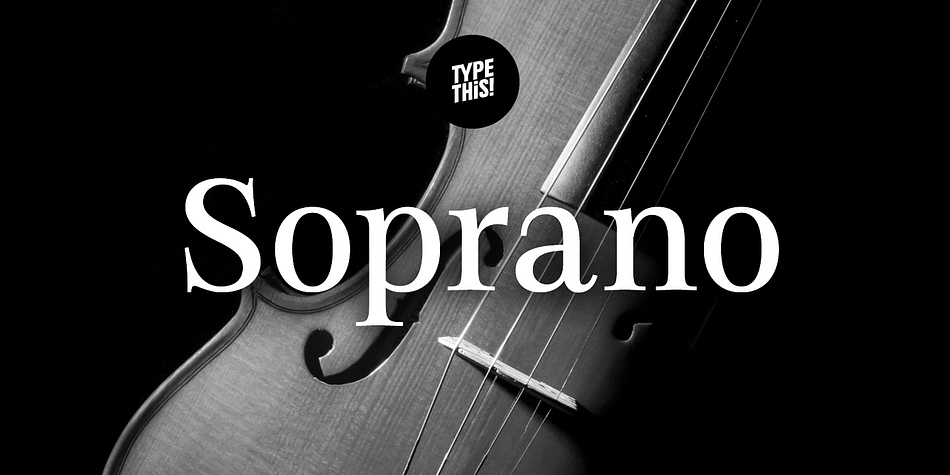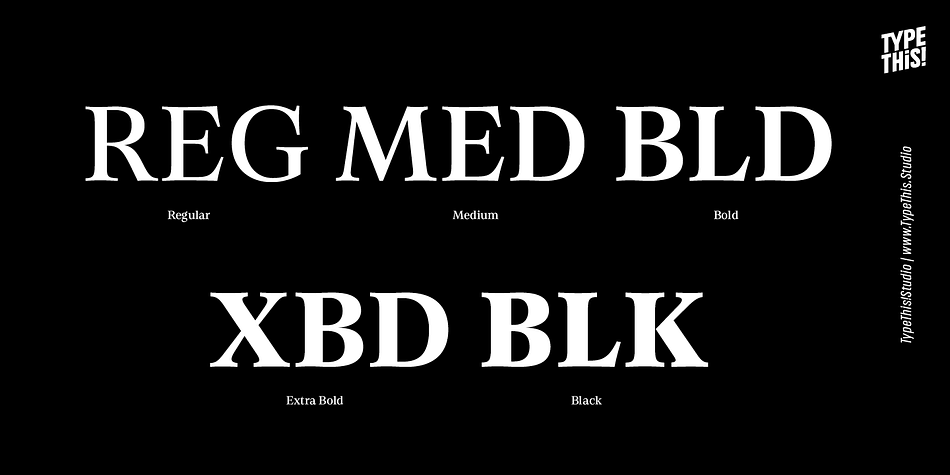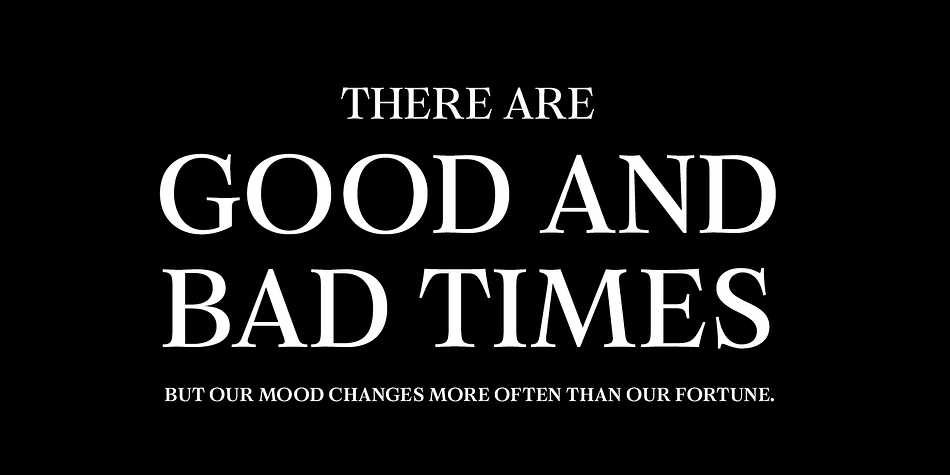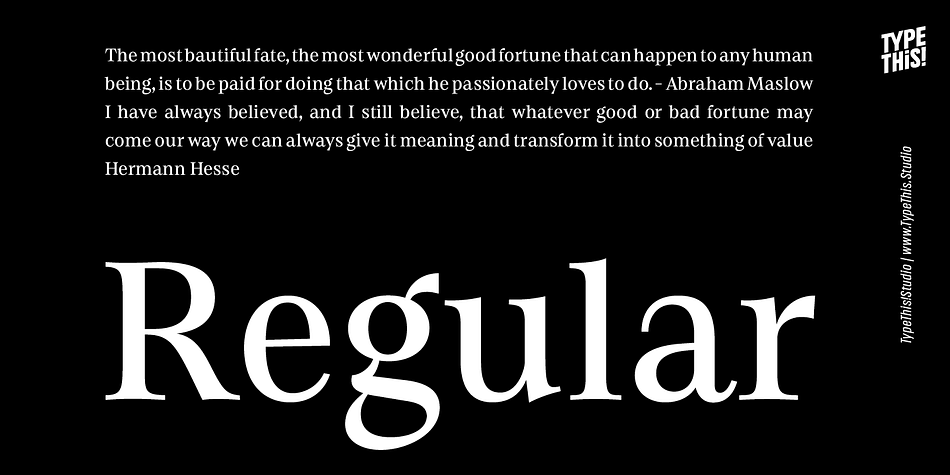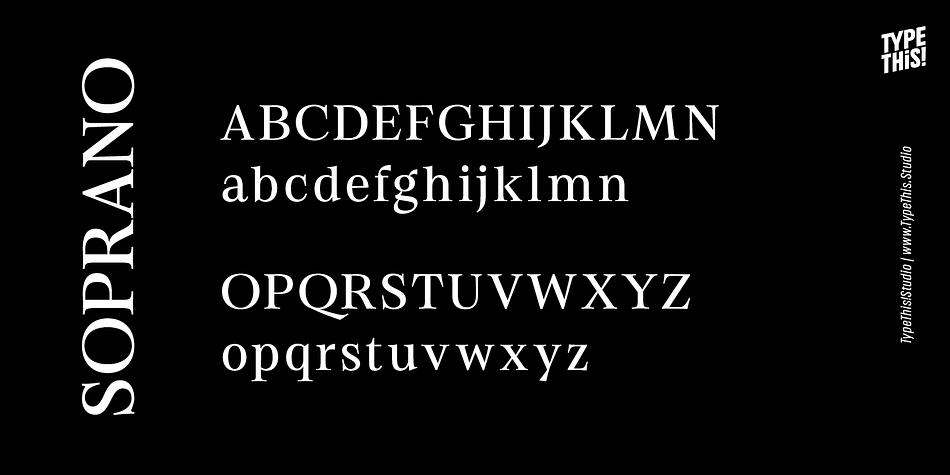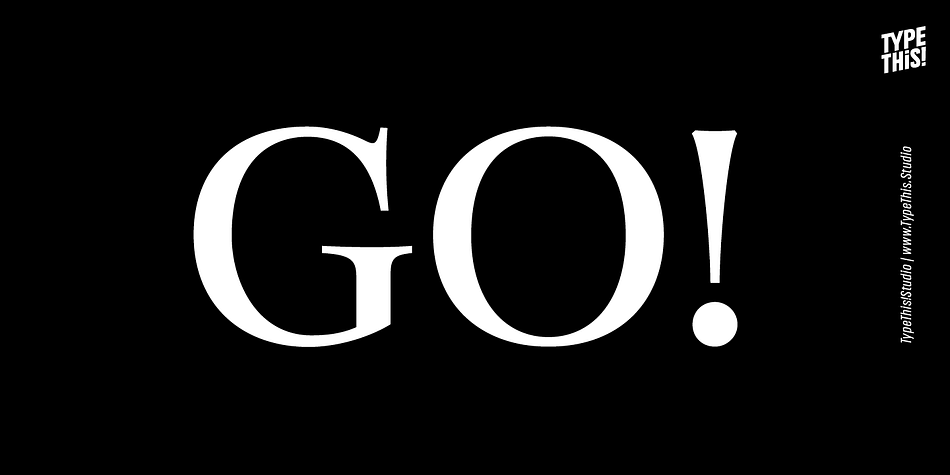
Soprano
Designed by Anita Jürgeleit, Soprano is a serif font family. This typeface has five styles and was published by TypeThis!Studio.
A well-polished typeface is like the sweet sound of a melodious voice.
Soprano is designed for elegant and luxury design elements. Whether it’s brands for watches, jewelry, cars or fine wines, Soprano adds the undeniable and outstanding beauty of a professional designed elegant typeface.
Soprano offers 5 weights and a full set of upper & lowercase letters, ligatures, old-style & lining figures as well as ​broad Latin​ language support.
Typeface Features
- 659 Characters
- 5 Styles (Regular, Medium, Bold, Extra Bold, Black)
- Old Style Figures
- Lining Figures
- Predefined Fractions
- Standard Ligatures
- Numerators/Denominators
- Sub-/Superscript
- 217 Latin languages supported
Foundry TypeThis!Studio
Designer Anita Jürgeleit